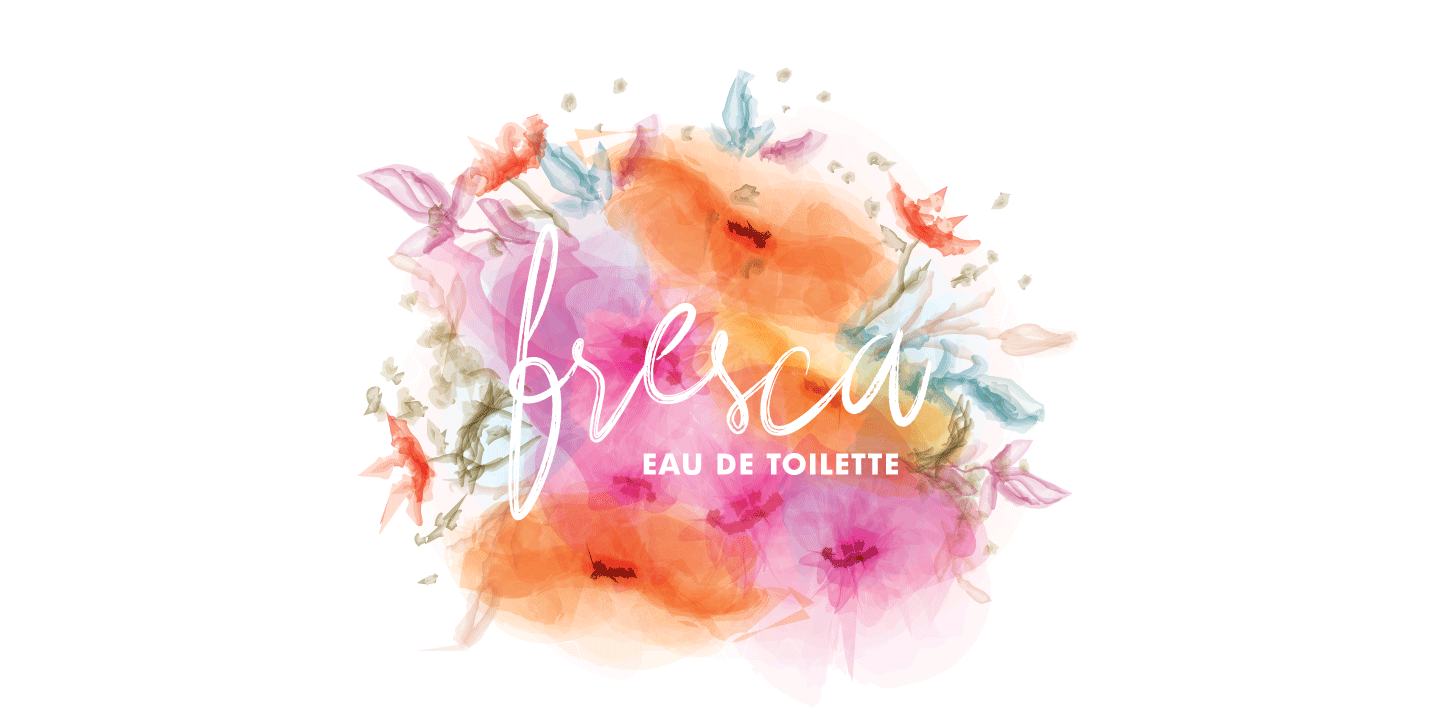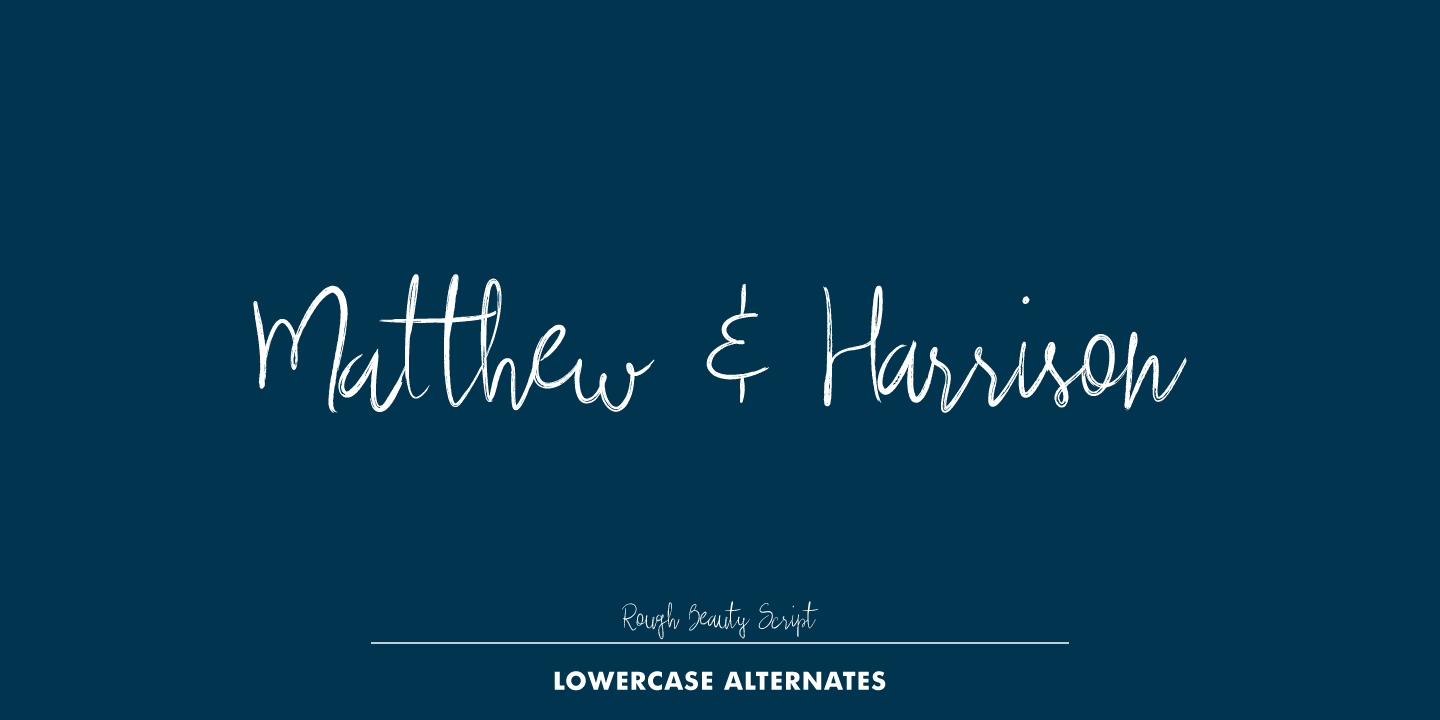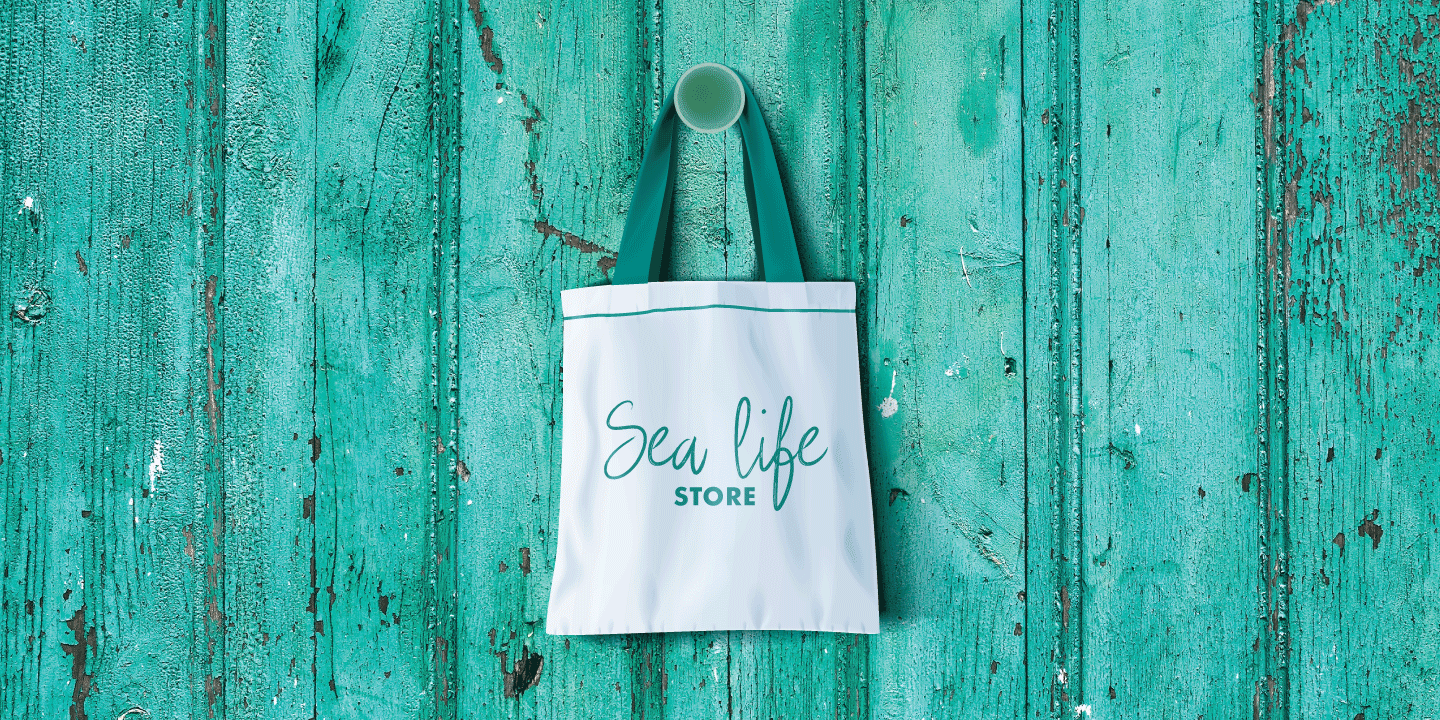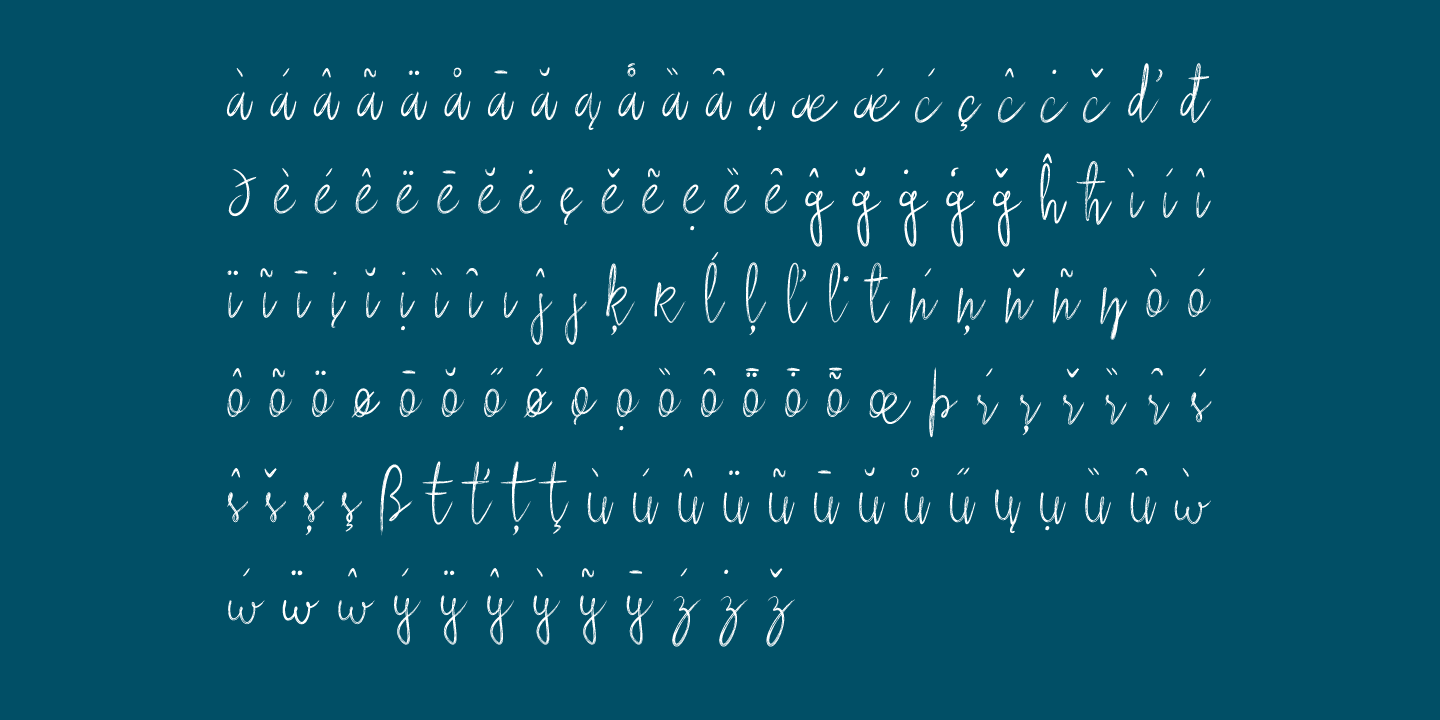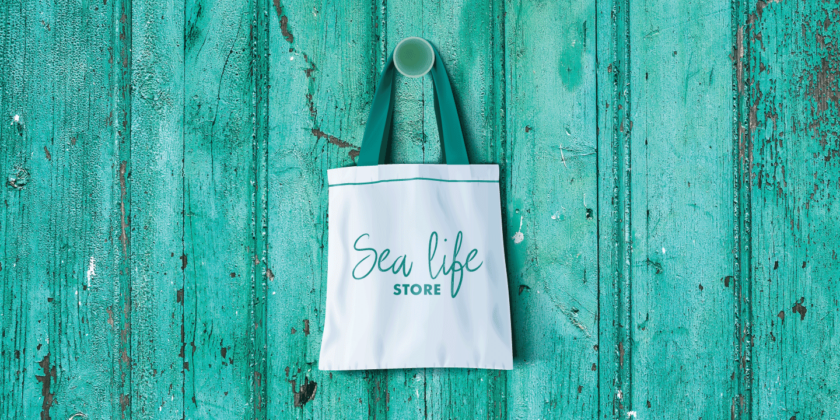
Rough Beauty Script
About Rough Beauty Script
Rough Beauty Script with alternate lowercase letters gives a personalized feeling to your work. The textured appearance gives a nice impression in beautiful pictures as backgrounds or, in contrast, with really flat backgrounds